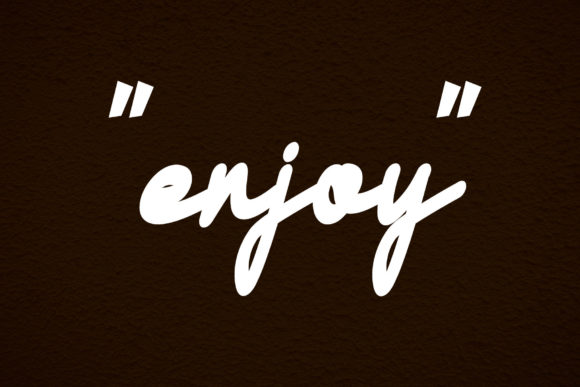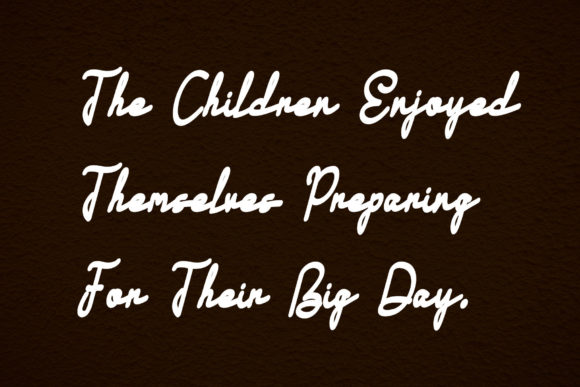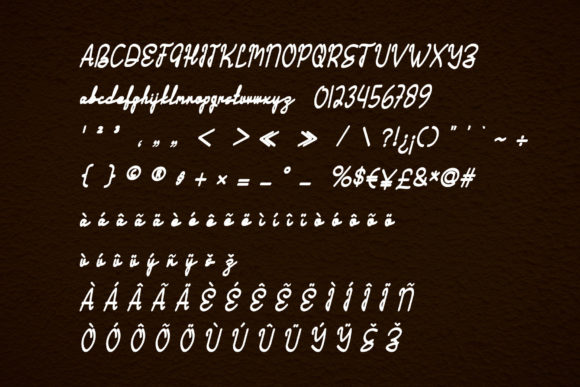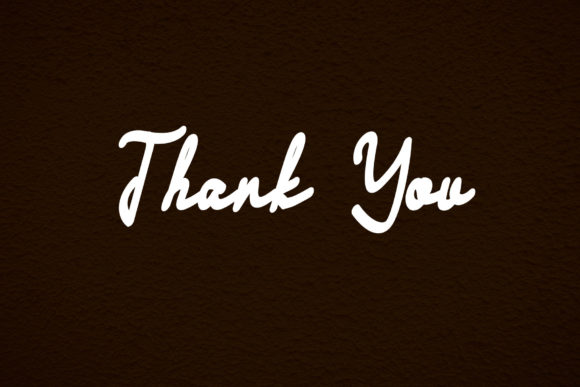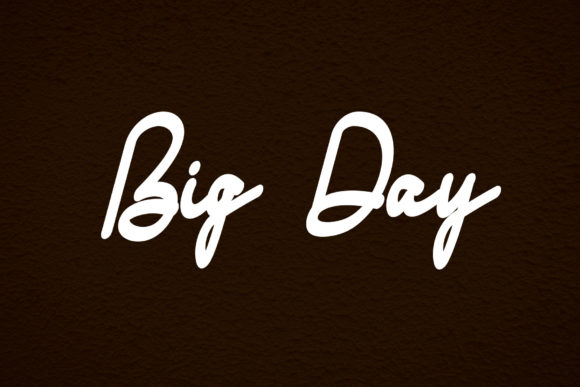
Introducing Big Day Font: The Sweet and Dainty Handwritten Font for Crafty Ideas
Are you a designer or crafter looking for a unique and charming font to elevate your creative projects? Look no further than Big Day Font, a beautiful handwritten font that features sweet and delicate swashes. With its original look and versatility, Big Day Font is perfect for a wide range of crafty ideas, from letterheads and titles to stationery and more.
The Characteristics of Big Day Font
Big Day Font is a one-of-a-kind handwritten font that boasts a cute and dainty aesthetic. Its delicate swashes add a touch of elegance and sophistication, making it perfect for projects that require a personal and whimsical touch. The font’s sweet and charming appearance is sure to capture the hearts of designers and crafters alike, and its versatility ensures that it can be used in a variety of creative applications.
Perfect for Crafty Ideas
Big Day Font is designed with crafty ideas in mind, making it the perfect choice for designers and crafters who want to add a personal touch to their projects. Whether you’re creating letterheads, titles, stationery, or any other type of crafty project, Big Day Font is sure to impress. Its unique and charming appearance will set your projects apart from the rest, and its delicate swashes will add a touch of elegance and sophistication.
Why Choose Big Day Font?
So why choose Big Day Font over other fonts on the market? Here are just a few reasons why Big Day Font stands out:
- Unique and Original Look: Big Day Font features a one-of-a-kind handwritten design that is sure to capture the hearts of designers and crafters alike.
- Delicate Swashes: The font’s delicate swashes add a touch of elegance and sophistication, making it perfect for projects that require a personal and whimsical touch.
- Versatility: Big Day Font can be used in a wide range of creative applications, from letterheads and titles to stationery and more.
- Cute and Dainty Aesthetic: The font’s cute and dainty aesthetic makes it perfect for projects that require a charming and whimsical touch.
How to Use Big Day Font
Using Big Day Font is easy and straightforward. Here are a few tips for incorporating the font into your creative projects:
- Pair with Other Fonts: Big Day Font pairs well with other fonts, making it easy to create unique and interesting typography combinations.
- Use for Headings and Titles: The font’s delicate swashes make it perfect for headings and titles, adding a touch of elegance and sophistication to your projects.
- Add a Personal Touch: Big Day Font is perfect for adding a personal touch to your projects, making it ideal for crafty ideas like stationery and letterheads.
Big Day Font is a beautiful and charming handwritten font that is perfect for designers and crafters who want to add a personal touch to their creative projects. With its unique and original look, delicate swashes, and versatility, Big Day Font is sure to become a favorite in your font collection. So why wait? Download Big Day Font today and start creating beautiful and charming projects that showcase your creativity and style.
Whether you’re a seasoned designer or a crafter just starting out, Big Day Font is a must-have font that is sure to inspire and delight. So go ahead, get creative, and make the most of this amazing font!